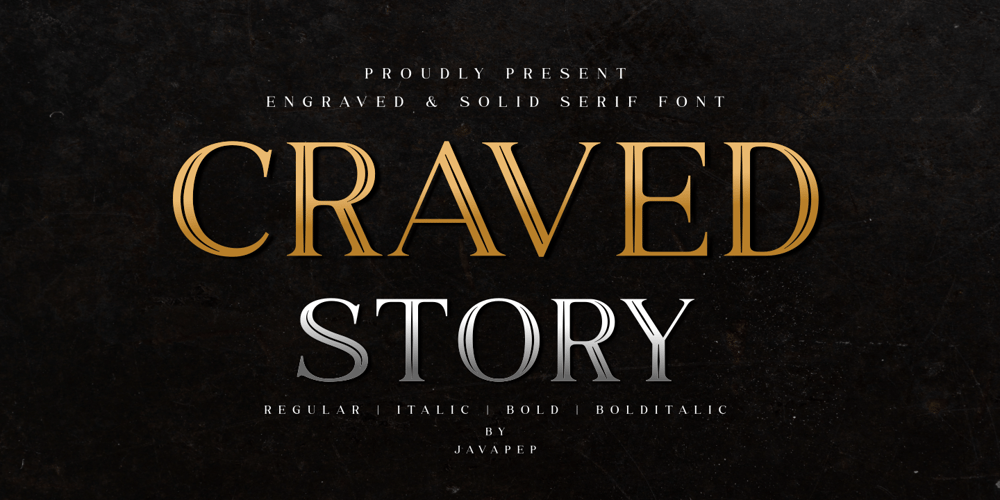
Craved Story Font Family was designed by Java Pep and published by Java Pep. Craved Story contains 8 styles and family package options. Proudly present the newest product called Craved Story Font. In the design process added engraving to every detail of the font character to create a stylish and elegant impression so your design project can make more outstanding. Craved Story Font is also perfect for use in vintage-style projects. In the package of this product, you’ll get engraved and solid font so you can mix and match for your project. f you have a technical issue don’t hesitate to contact me. Thanks and have a nice day.